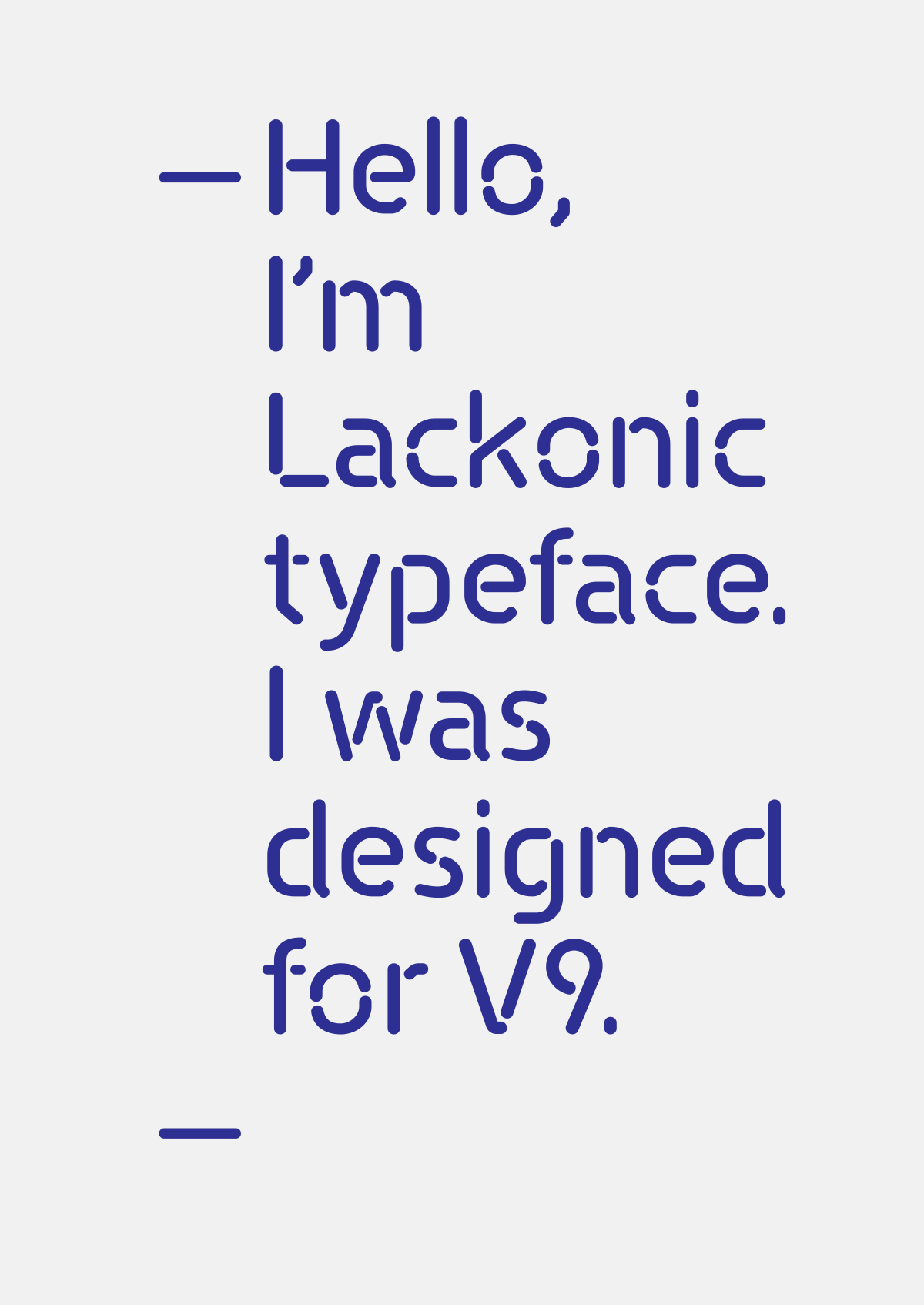
Lackonic Typeface
Lackonic is a display stencil typeface with humanist proportions and medium weight, inspired by tubular shapes. It was primarily designed for Primavera's Version 9 range of products, being used to set the products name within the suite.
It all started with the product symbol — 9 — which corresponds to the suite version. So why not drawing all other characters, based upon these shapes? That would give a higher sense of unity and of consistency among the different products in the suite.
That is how Lackonic was born.
A3 laser cut brochure and plexiglas case
showcasing the main character set.